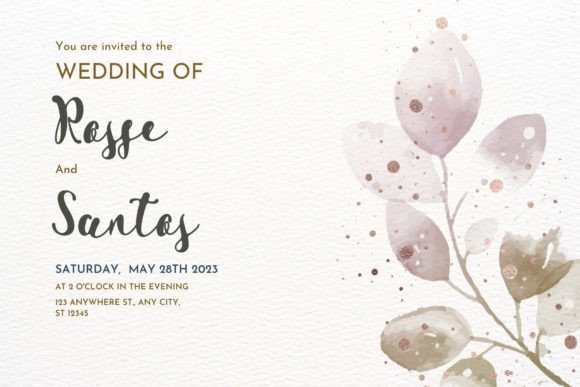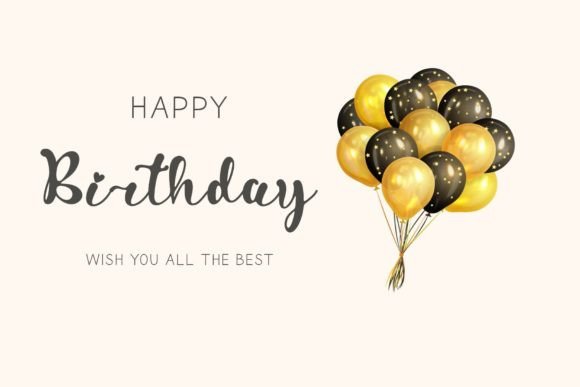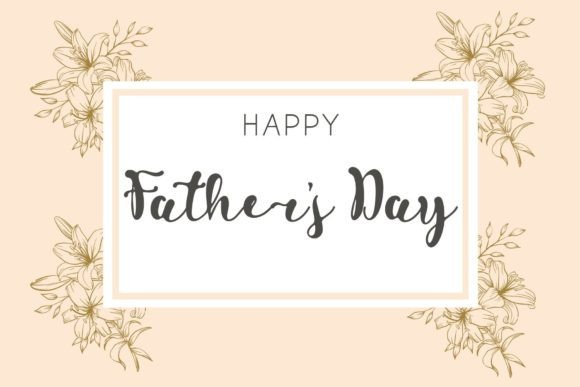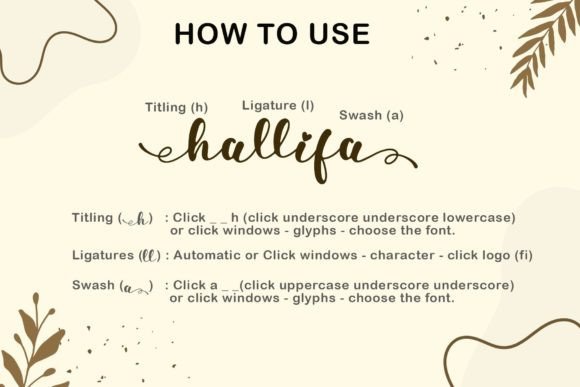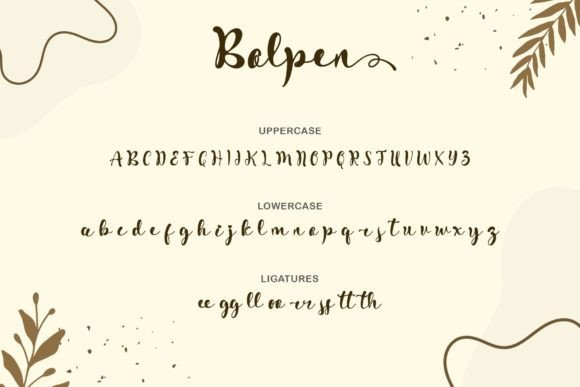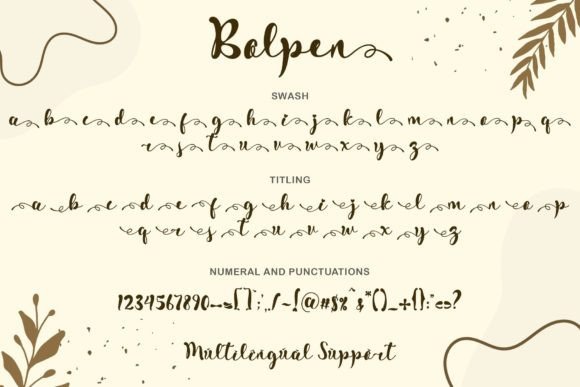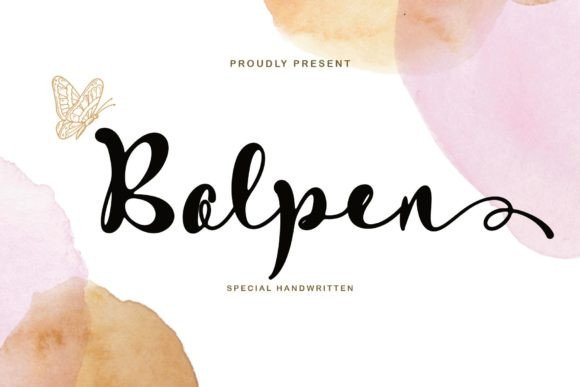
Bolpen Font
About Bolpen Font
**Bolpen: Unique and Simple Handwritten Font for Diverse Creativity**
Embrace the distinctive charm of Bolpen, a unique and simple handwritten font crafted for a variety of creative projects. Whether it’s weddings, posters, stickers, photography, congratulations cards, invitation cards, or more, Bolpen is designed to add a touch of individuality and style. With PUA encoding, accessing all the glyphs and swashes becomes a seamless experience, empowering you to explore the full creative potential of this versatile font.
**Uniqueness in Simplicity:**
Bolpen stands out by blending uniqueness with simplicity. The handwritten style adds a personal touch to your projects, making it suitable for a wide range of applications. The simplicity of the font ensures readability while maintaining an authentic and handmade feel.
**Perfect for Diverse Creative Projects:**
From weddings to posters and from stickers to photography, Bolpen adapts effortlessly to diverse creative projects. Its versatility makes it a go-to choice for expressing a range of emotions and themes. Whether you’re conveying congratulations or setting the tone for a special event, Bolpen brings a touch of charm to your designs.
**Ideal for Invitations and Cards:**
Bolpen’s simplicity and unique flair make it an ideal choice for invitations and cards. Whether you’re designing wedding invitations or creating heartfelt congratulations cards, the font adds a warm and personal touch. It becomes a visual storyteller, conveying emotions through its handwritten strokes.
**PUA Encoded for Seamless Access:**
With PUA encoding, Bolpen ensures that accessing all the glyphs and swashes is a breeze. This feature enhances the user experience, allowing you to effortlessly incorporate the font’s intricate details into your designs. The flexibility of glyphs and swashes provides an additional layer of creative freedom.
**Conclusion: Enhance Your Creativity with Bolpen**
In conclusion, Bolpen is not just a font; it’s a versatile tool designed to enhance your creativity. Whether you’re working on wedding materials, posters, or heartfelt cards, let Bolpen be the unique and simple handwritten font that brings a touch of individuality to your designs. With PUA encoding, Bolpen empowers you to explore the full spectrum of its charming details, making it a standout choice for your diverse creative projects.